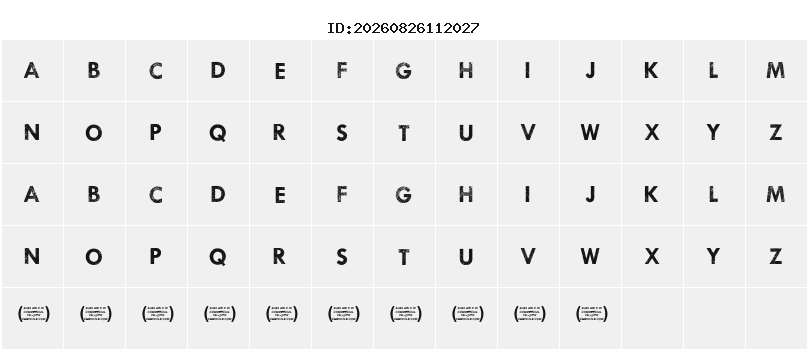
• Font Name: Waukegan Hustle
• Designer: Chris Vile
• Manufacturer: Fonts by Font Monger
• Description: Waukegan Hustle Regular is a font by Fonts by Font Monger, designed by Chris Vile in 2014.
About Waukegan Hustle.ttf
Waukegan Hustle.ttf is a modern, elegant sans-serif font designed for ultimate readability and visual harmony. Perfect for branding, headlines, web design, and print materials.